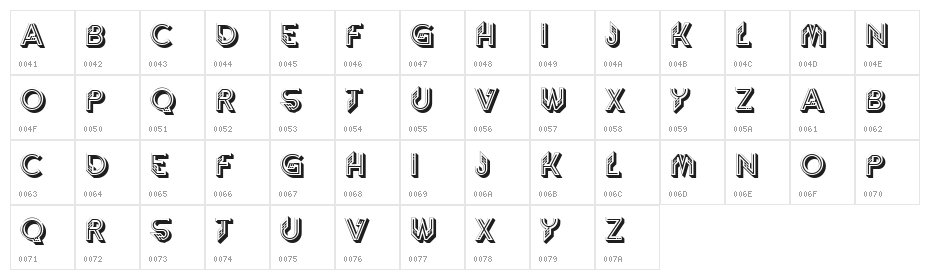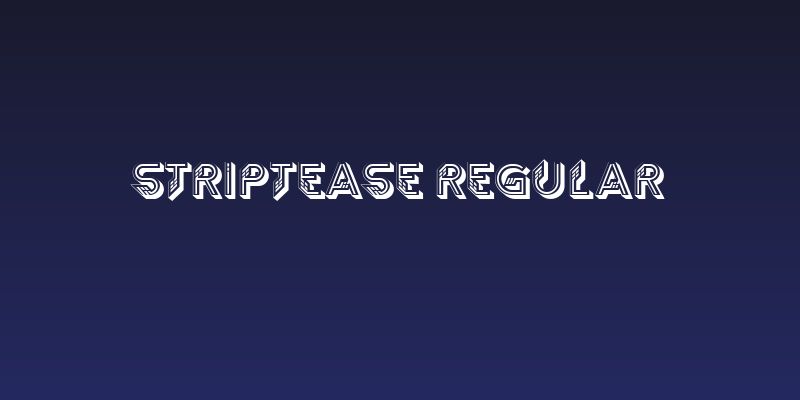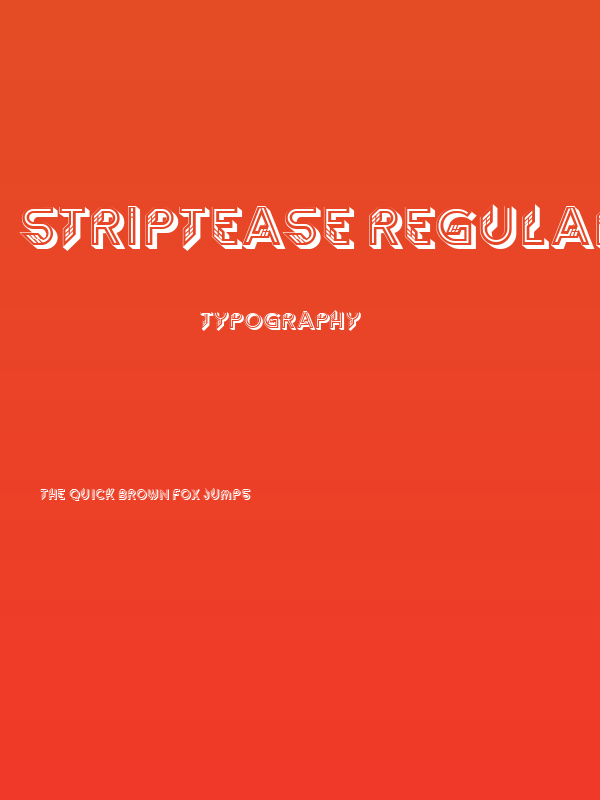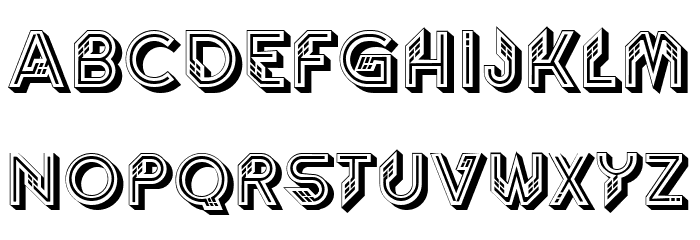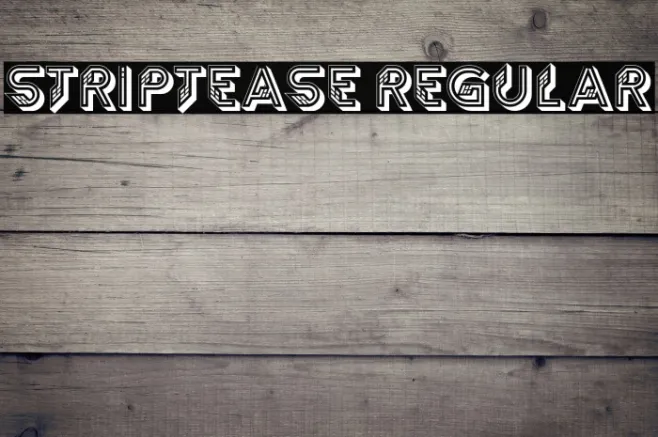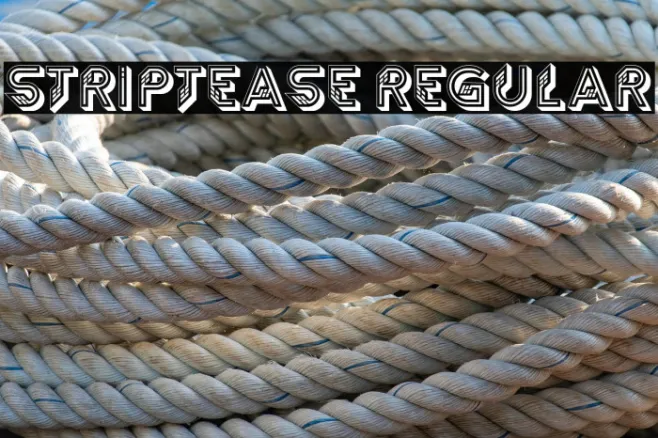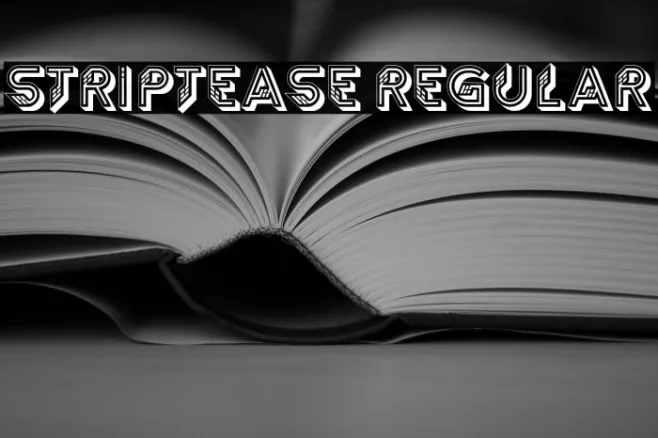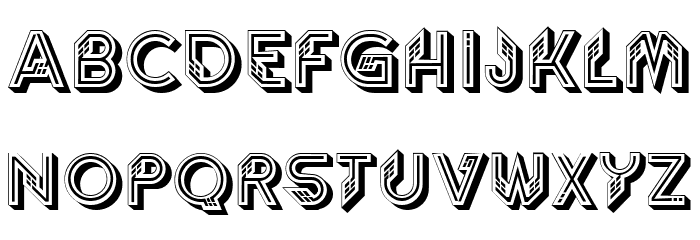
Striptease Regular Font
Striptease Regular Description
This font features a bold, decorative style with a three-dimensional effect created by layered lines and shadows. The uppercase letters exhibit a geometric design with intricate patterns within each character, giving it a dynamic and eye-catching appearance. The font's structure is solid and robust, making it suitable for impactful visual statements. Its unique style is reminiscent of retro and vintage aesthetics, yet it maintains a modern edge through its clean lines and precise angles. The font's playful and artistic nature makes it ideal for creative projects that require a standout typographic element.
| Overall Style | Retro, Modern, Decorative |
| Proposed Projects | Ideal for poster designs, branding, album covers, and any project needing a bold, artistic touch. |